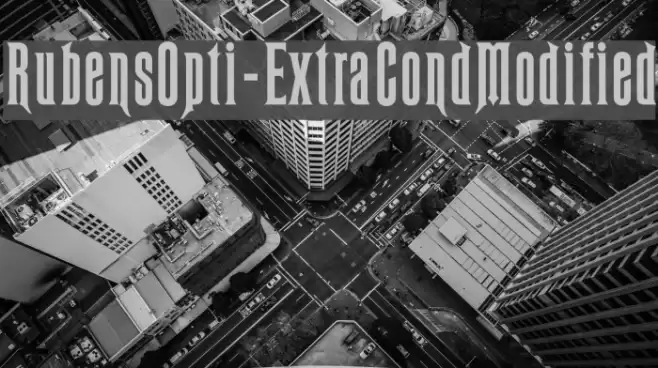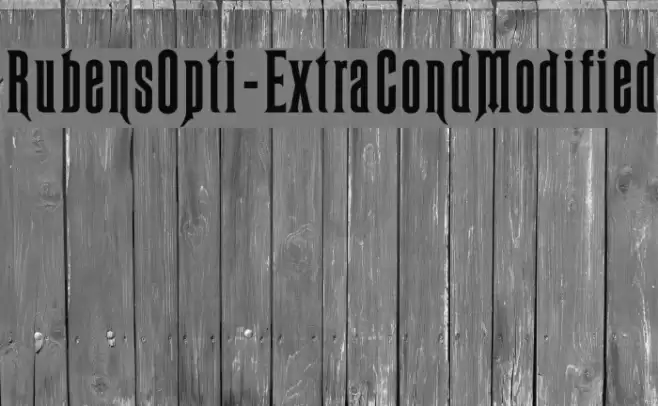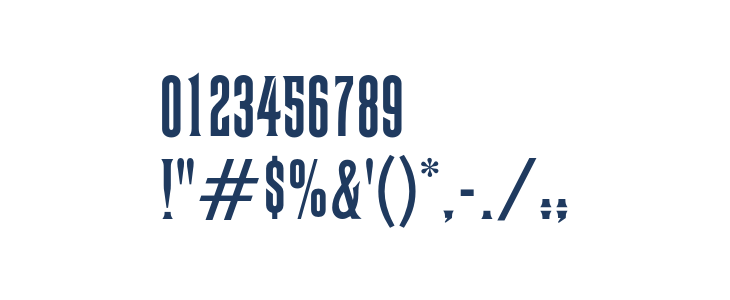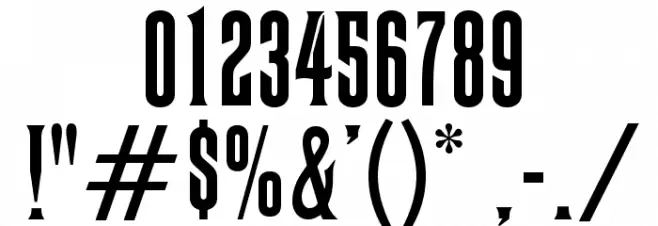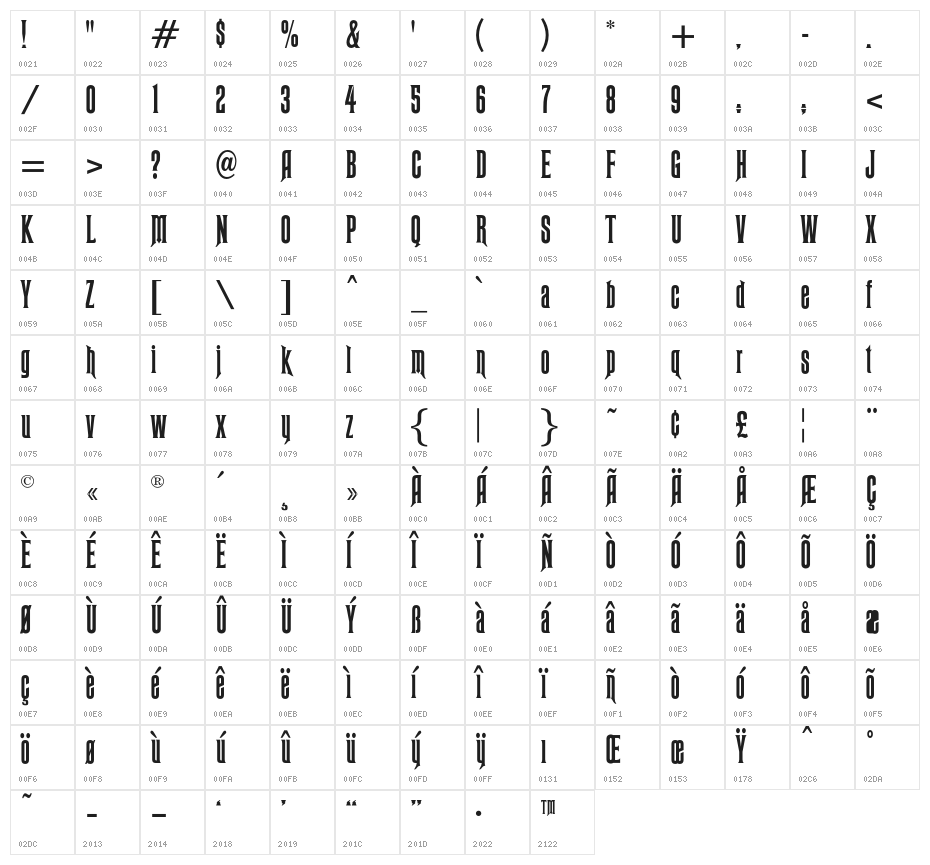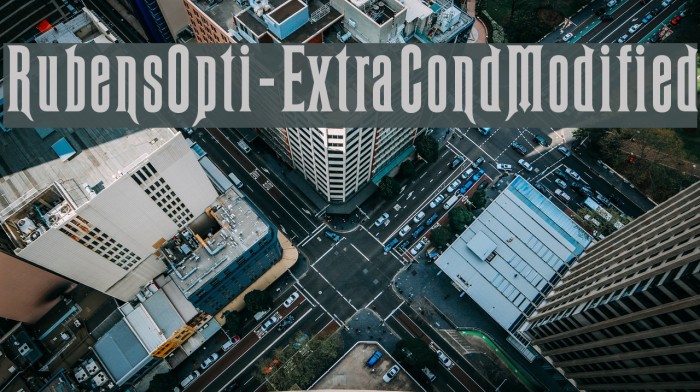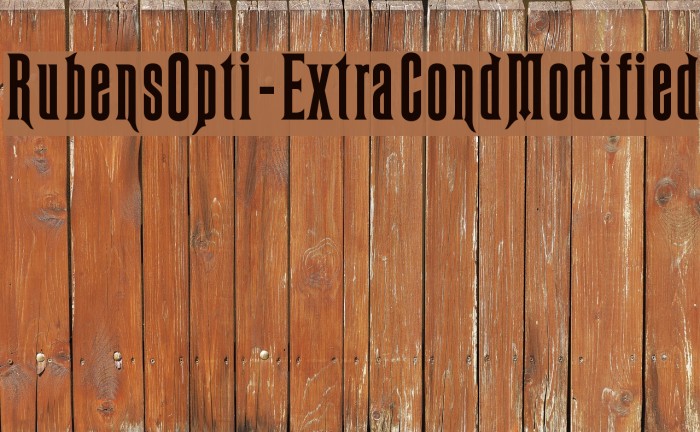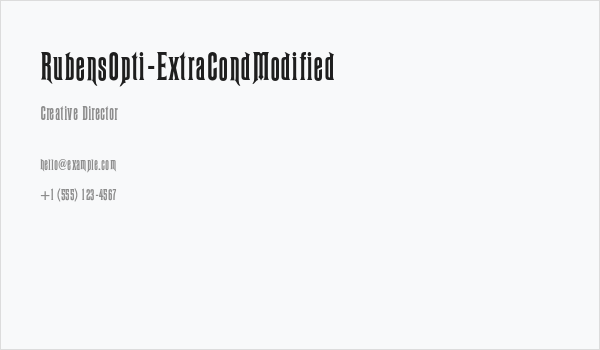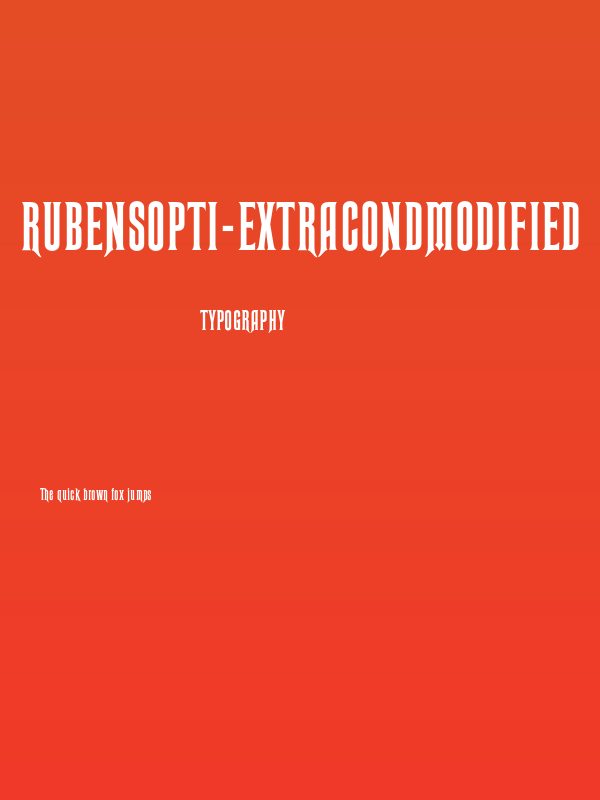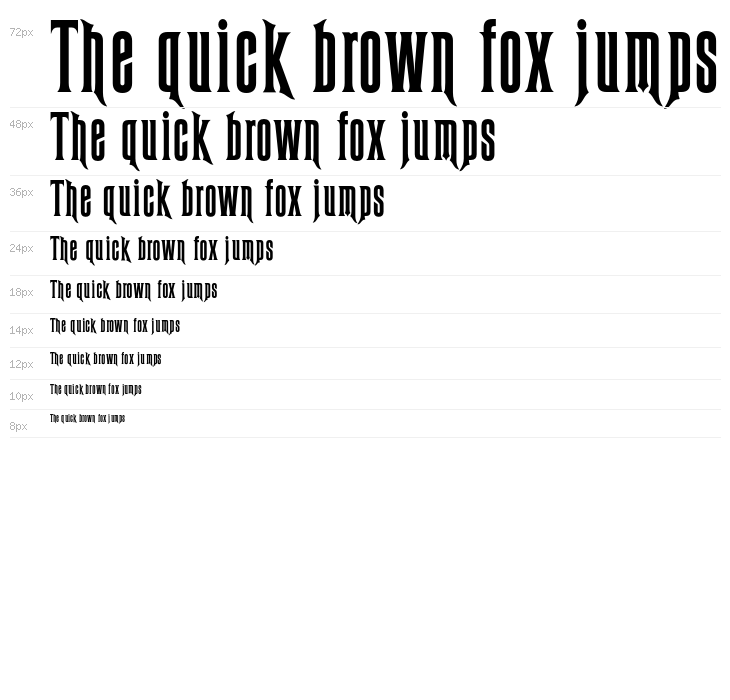
RubensOpti-ExtraCondModified Font
RubensOpti-ExtraCondModified Description
This font features a bold and dramatic style with elongated, narrow characters that create a striking visual impact. The uppercase letters are tall and imposing, while the lowercase letters maintain a consistent height, adding to the font's cohesive appearance. The numerals are equally bold, ensuring readability and uniformity across different uses. Special characters are designed with the same attention to detail, making them suitable for a variety of design needs. The overall aesthetic is reminiscent of vintage or gothic styles, with sharp serifs and a condensed width that enhances its distinctive look.
A bold, condensed font with a vintage, gothic flair from Uncategorized fonts.
- Proposed Projects: Ideal for posters, logos, book covers, and any design requiring a dramatic, eye-catching typeface.
- Character Spacing: Tight
- Overall Style: Vintage, Gothic